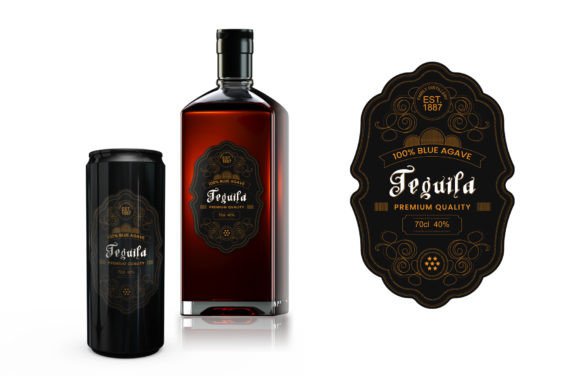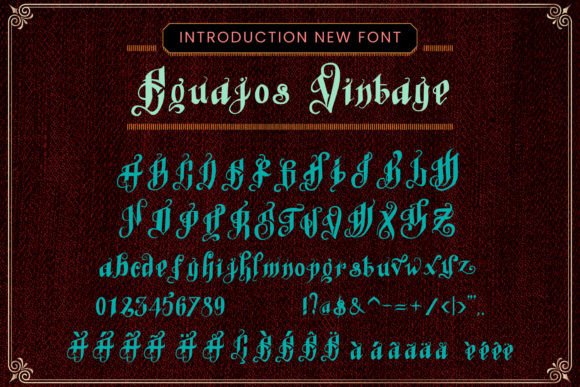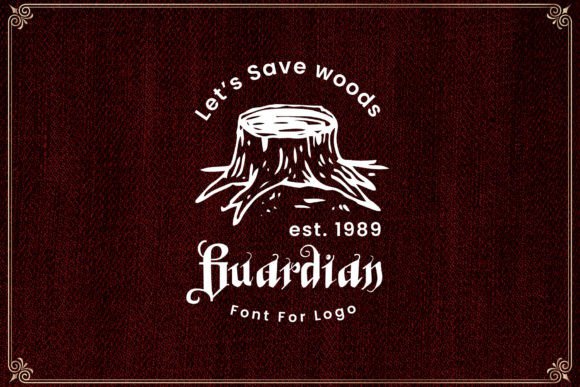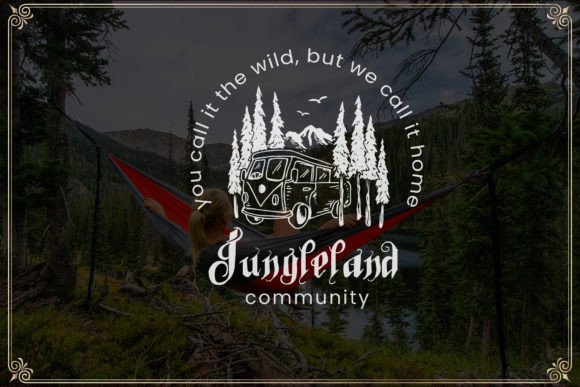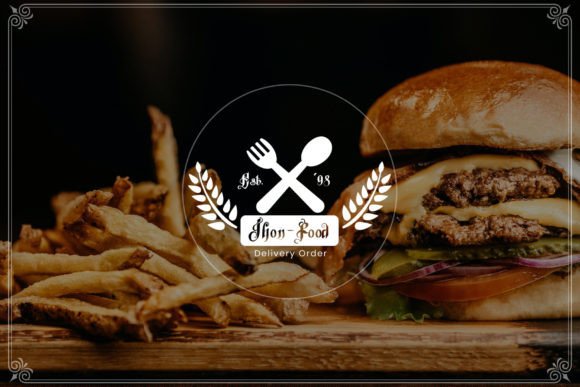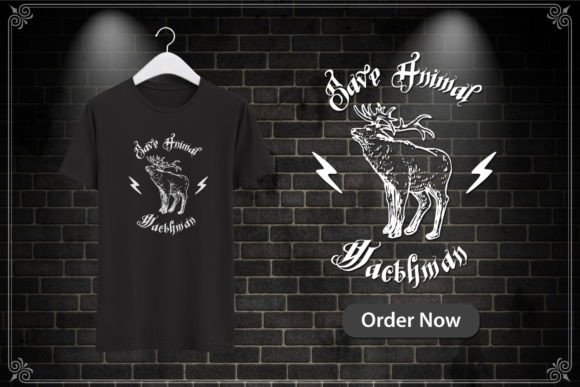
Introducing Equajos Font: A Bold and Solid Vintage Typeface Inspired by Retro Gothic Lettering
Are you a designer or crafter looking for a unique and eye-catching font to elevate your projects? Look no further than Equajos Font, a vintage typeface inspired by retro Gothic lettering signs and art. This bold and solid font is perfect for a wide range of applications, from headlines and logotypes to apparel, invitations, labels, branding, packaging, advertising, and more.
The Inspiration Behind Equajos Font
Equajos Font draws inspiration from the classic Gothic lettering styles of the past, with a modern twist. The font’s bold and solid design makes it perfect for creating striking headlines, titles, and logotypes that demand attention. The retro vibe of Equajos Font is sure to evoke a sense of nostalgia and timelessness, making it ideal for projects that require a vintage or distressed look.
Key Features of Equajos Font
- Bold and Solid Design: Equajos Font features a bold and solid design that makes it perfect for creating eye-catching headlines, titles, and logotypes.
- Retro Gothic Inspiration: The font’s retro Gothic inspiration gives it a unique and distinctive look that’s sure to stand out.
- Versatile: Equajos Font can be used for a wide range of projects, from print materials like brochures and posters to digital applications like social media graphics and website headers.
- Easy to Read: Despite its bold design, Equajos Font is easy to read, making it perfect for use in body text as well as headlines.
Equajos Font is not just limited to commercial projects; it’s also perfect for creative projects like art, craft, and DIY applications. Whether you’re creating handmade cards, scrapbooking pages, or other craft projects, Equajos Font is sure to add a touch of personality and style.
Examples of Projects That Can Use Equajos Font
- Headlines and Logotypes: Use Equajos Font to create bold and eye-catching headlines and logotypes for your website, social media, or print materials.
- Apparel and Fashion: Add a touch of vintage style to your apparel and fashion designs with Equajos Font.
- Invitations and Stationery: Use Equajos Font to create unique and stylish invitations, greeting cards, and stationery.
- Labels and Packaging: Add a bold and eye-catching touch to your labels and packaging with Equajos Font.
- Branding and Advertising: Use Equajos Font to create bold and memorable branding and advertising materials.
Why Choose Equajos Font?
With so many fonts available, why choose Equajos Font? Here are just a few reasons:
- Unique and Distinctive: Equajos Font has a unique and distinctive look that’s sure to stand out from the crowd.
- High-Quality Design: The font is designed to high standards, ensuring that it’s clear and easy to read.
- Versatile: Equajos Font can be used for a wide range of projects, from print materials to digital applications.
In conclusion, Equajos Font is a bold and solid vintage typeface inspired by retro Gothic lettering signs and art. With its unique and distinctive look, high-quality design, and versatility, it’s perfect for a wide range of projects, from commercial applications to creative projects. Whether you’re a designer, crafter, or DIY enthusiast, Equajos Font is sure to become a valuable addition to your font collection.